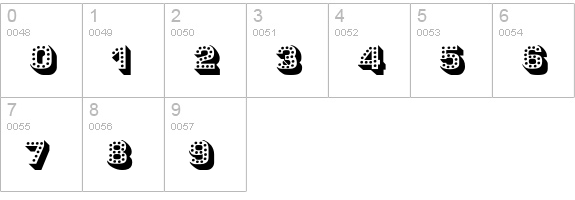
Tonight Font Details
Introducing the captivating and versatile Tonight font, a stunning typeface that will bring an air of elegance and sophistication to any design project. With its graceful curves and exquisite details, Tonight is truly a font that demands attention. This font is not only visually appealing, but it also offers exceptional functionality. Its wide range of weights and styles allows for endless creative possibilities, making it suitable for a variety of design applications. Whether you're designing a logo, a website, or a print advertisement, Tonight will effortlessly elevate your project to new heights. One of the most remarkable aspects of Tonight font is that it is completely free. That's right, this exceptional font is freely available to download at FontsMarket.com. This means that you can access and use this font without any cost or restrictions, making it a valuable asset for both personal and commercial projects. So, why wait? Discover the beauty and versatility of Tonight font today and unlock a world of creative possibilities. Download it for free at FontsMarket.com and let your imagination soar.